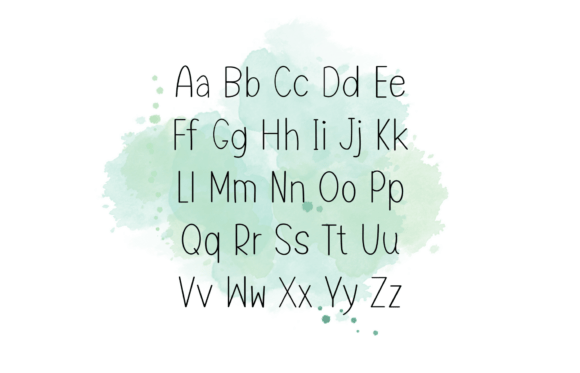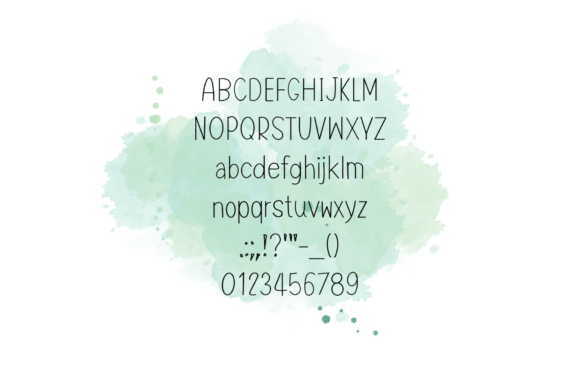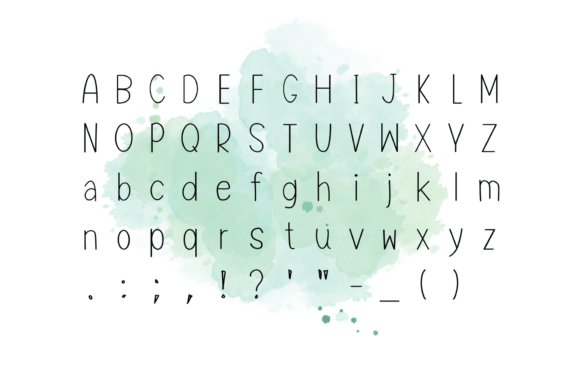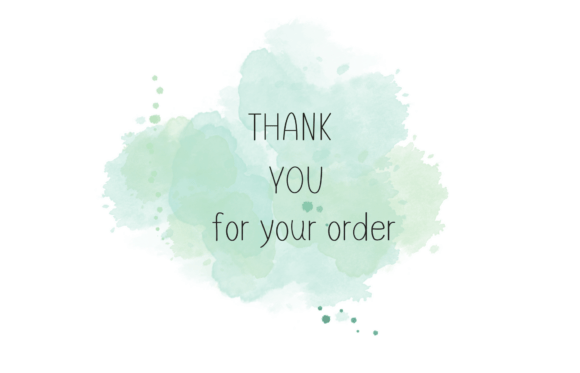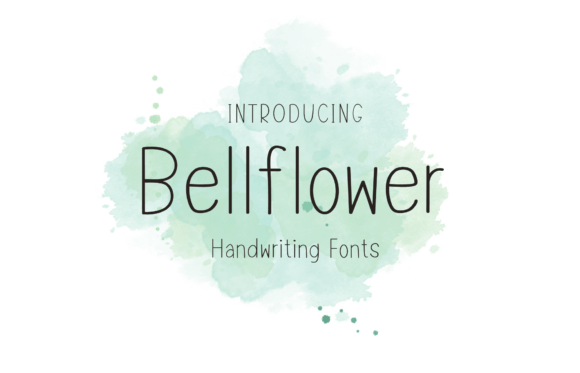
Bellflower Font: The Sweet and Friendly Handwritten Display Font
Are you looking for a font that can add a touch of sweetness and friendliness to your designs? Look no further than the Bellflower font! This beautiful handwritten display font is perfect for crafts, digital design, presentations, and a wide range of other creative projects. In this article, we’ll take a closer look at the Bellflower font, its features, and how you can use it to take your designs to the next level.
What is Bellflower Font?
Bellflower font is a sweet and friendly handwritten display font that is designed to bring a touch of fun and playfulness to your designs. With its cute and charming lettering style, this font is ideal for use in a wide range of creative projects, from crafts and digital design to presentations and writing wedding invitations, cards, and more.
Features of Bellflower Font
The Bellflower font has a number of features that make it an ideal choice for designers and crafters. Some of its key features include:
- Sweet and Friendly Style: The Bellflower font has a sweet and friendly style that is perfect for designs that need a touch of playfulness and charm.
- Handwritten Display Font: This font is a handwritten display font, which means it’s perfect for use in headings, titles, and other display text.
- Cute and Fun: The Bellflower font is a cute and fun font that is sure to bring a smile to the face of anyone who sees it.
- Versatile: This font is versatile and can be used in a wide range of creative projects, from crafts and digital design to presentations and writing wedding invitations, cards, and more.
Use Cases for Bellflower Font
The Bellflower font is a versatile font that can be used in a wide range of creative projects. Here are some use cases where this font really shines:
- Crafts: The Bellflower font is perfect for use in crafts, such as scrapbooking, card making, and other paper crafts.
- Digital Design: This font is great for use in digital design, such as creating social media graphics, blog posts, and other digital content.
- Presentations: The Bellflower font is a great choice for use in presentations, as it adds a touch of friendliness and approachability to your slides.
- Wedding Invitations and Cards: This font is perfect for use in writing wedding invitations, cards, and other stationery.
- School Projects: The Bellflower font is ideal for use in school projects, such as creating posters, presentations, and other educational materials.
- Comic Book Style: This font is great for use in comic book style designs, such as creating graphic novels, comics, and other illustrated stories.
- Game Online: The Bellflower font can be used in online games, such as creating game titles, menus, and other game elements.
- Love Shirts: This font is perfect for use in creating custom love shirts, such as Valentine’s Day gifts and other romantic apparel.
- Posters: The Bellflower font is great for use in creating posters, such as movie posters, event posters, and other promotional materials.
- Movie Titles: This font can be used in creating movie titles, such as title sequences, movie posters, and other film-related materials.
Why Choose Bellflower Font?
There are many reasons why you might choose the Bellflower font for your next creative project. Here are a few reasons why:
- Unique Style: The Bellflower font has a unique and distinctive style that sets it apart from other fonts.
- Versatility: The Bellflower font is versatile and can be used in a wide range of creative projects.
- Cute and Fun: This font is cute and fun, making it perfect for designs that need a touch of playfulness and charm.
| Font Name | Bellflower Font |
| Author | Beer Design |
In conclusion, the Bellflower font is a sweet and friendly handwritten display font that is perfect for a wide range of creative projects. With its cute and fun style, versatility, and ease of use, this font is sure to become a favorite among designers and crafters. Whether you’re creating crafts, digital design, presentations, or writing wedding invitations, cards, or other stationery, the Bellflower font is a great choice. So why not give it a try and see how it can add a touch of sweetness and friendliness to your designs?